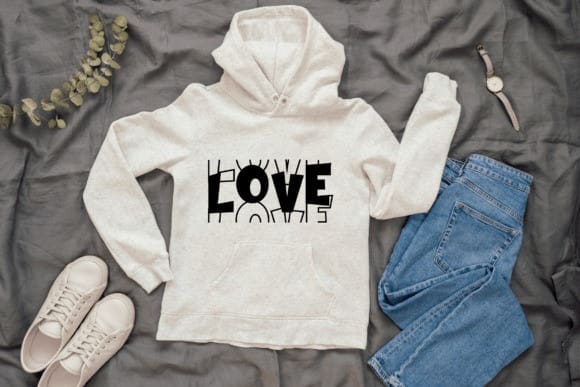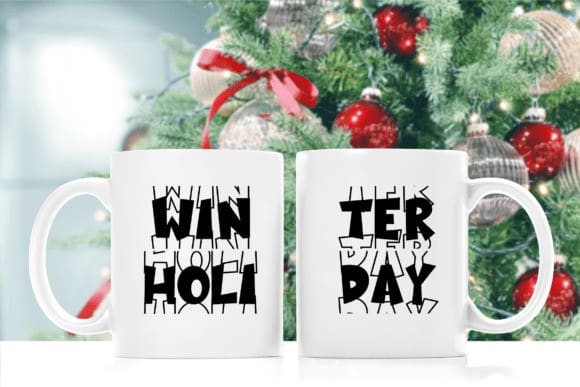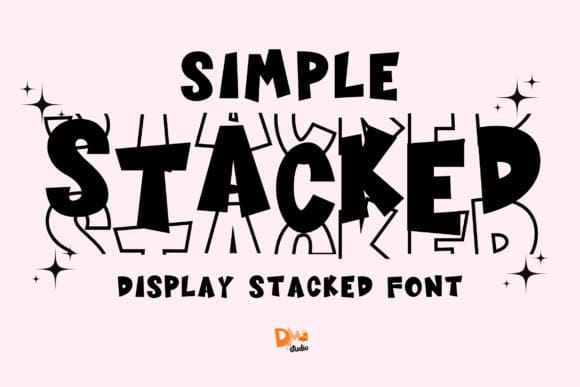
Simple Stacked Font
Simple Stacked Font – an embodiment of modern minimalism featuring a crisp, layered structure. Constructed to craft eye-catching typography, its prime use shines in logo designs, poster drafts, punchy headlines, striking social media visuals, and various creative initiatives. Offering a blend of simplicity and impact, this typeface guarantees legibility, while bestowing a one-of-a-kind stacked appeal to your designs. Versatile and stylish, Simple Stacked Font is the go-to choice for those seeking to infuse a sophisticated touch to their branding endeavor or add a pop of light-hearted vibrancy to promotional content. Stay simple, stay stunning with Simple Stacked Font.